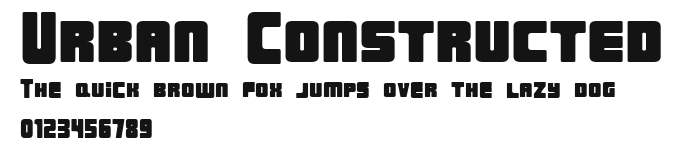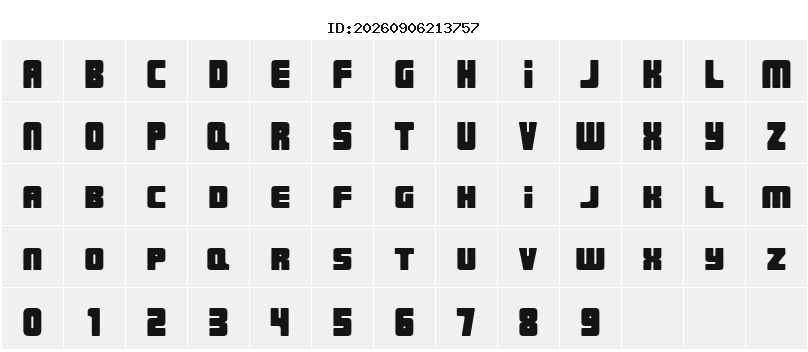
• Font Name: Urban Constructed
• Full Font Name: Urban Constructed
• Designer: Nils von Blanc
• Manufacturer: Nils von Blanc (www.nils-von-blanc.de)
• Description: Urban Constructed is a Font Nils von Blanc (www.nils-von-blanc.de). The Font was inspired by Jakob Fischer / PizzaDude and his "Nonstop" Font. (http://www.pizzadude.dk) ----------------------------------------- This Font is licensed under a Creative Commons Attribution-Noncommercial 3.0 Unported (http://creativecommons.org/licenses/by-nc/3.0/). You are free: to Share Ñ to copy, distribute and transmit the work to Remix Ñ to adapt the work Under the following conditions: Attribution Ñ You must attribute the work in the manner specified by the author or licensor (but not in any way that suggests that they endorse you or your use of the work). Noncommercial Ñ You may not use this work for commercial purposes. IF YOU WANT TO USE THIS FONT COMMERCIAL: PLEASE SENT A EMAIL TO "VONBLANC@GMX.DE"
About Urban Constructed.ttf
Urban Constructed.ttf is a modern, elegant sans-serif font designed for ultimate readability and visual harmony. Perfect for branding, headlines, web design, and print materials.